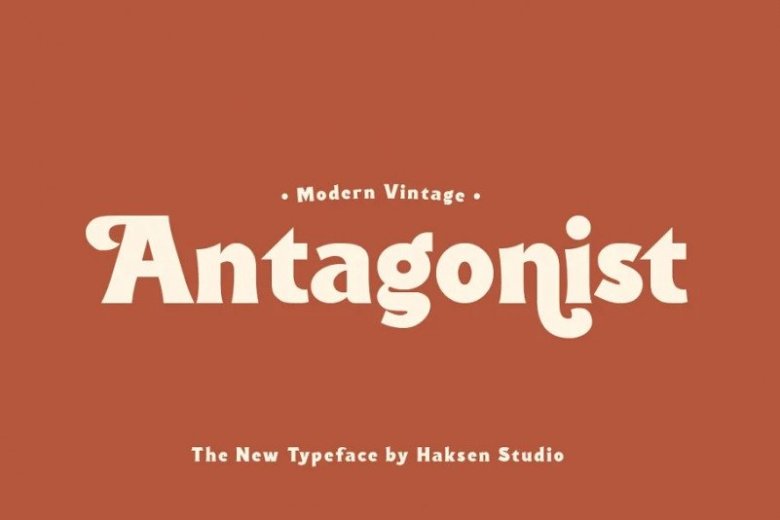
Antagonist Font
Antagonist Bold Serif Font is unique, playful and versatile bold serif font created by Haksen with upper and lowercase feel nice balanced. Its wide range of uppercase and lowercase alternates allow versatile design options and works perfectly for headlines, logos, posters, packaging, T-shirts, postcards and much more.